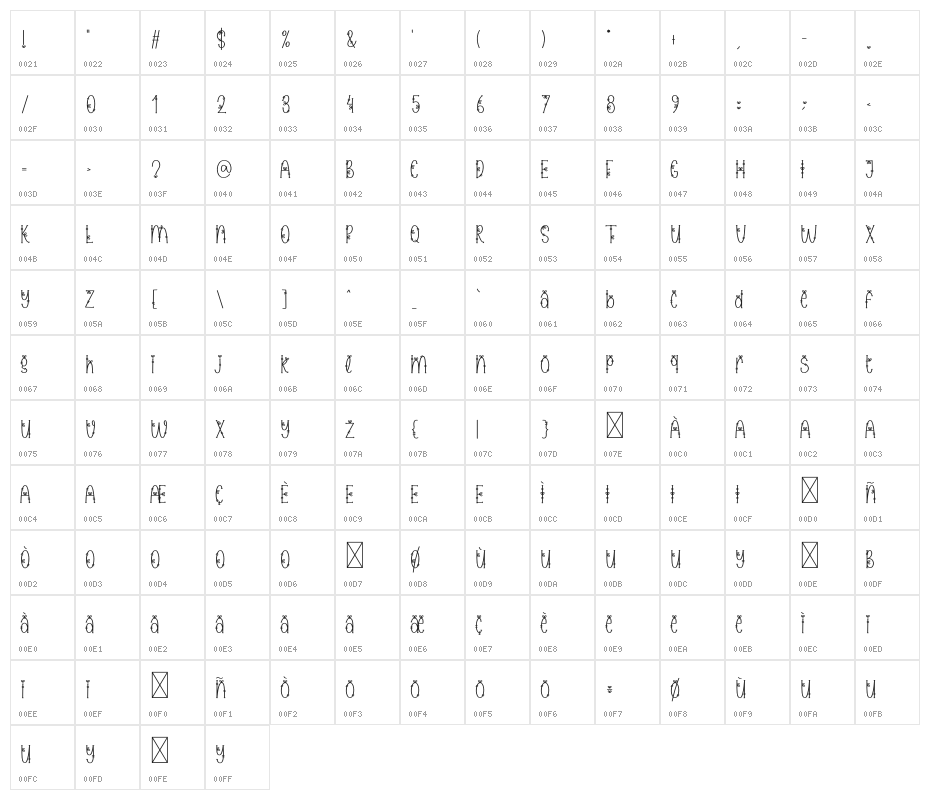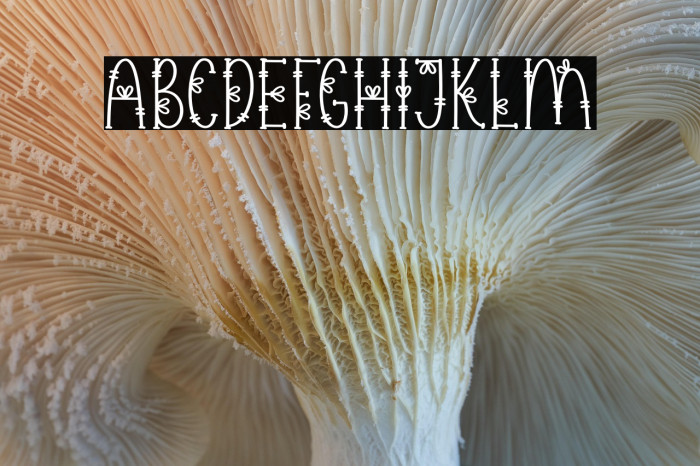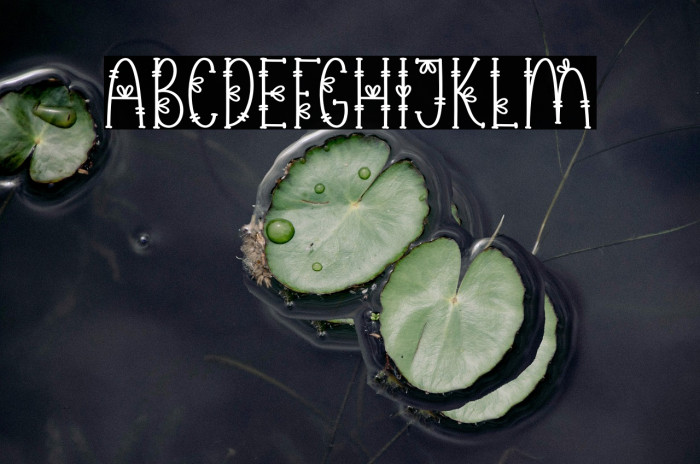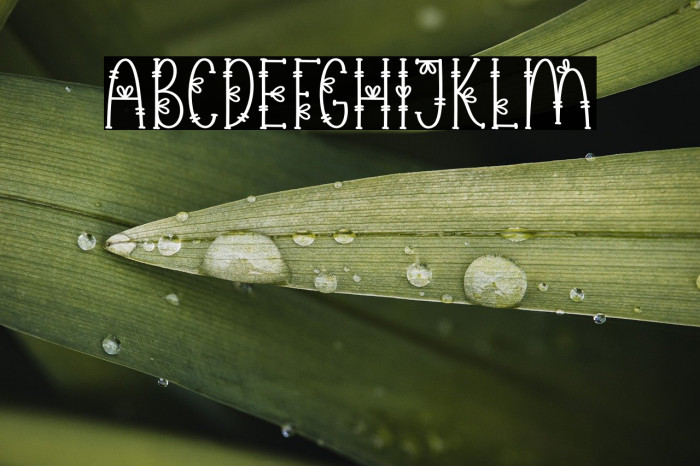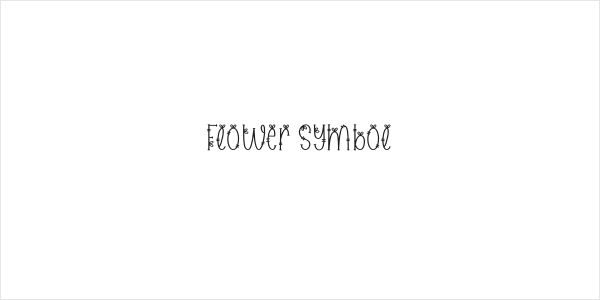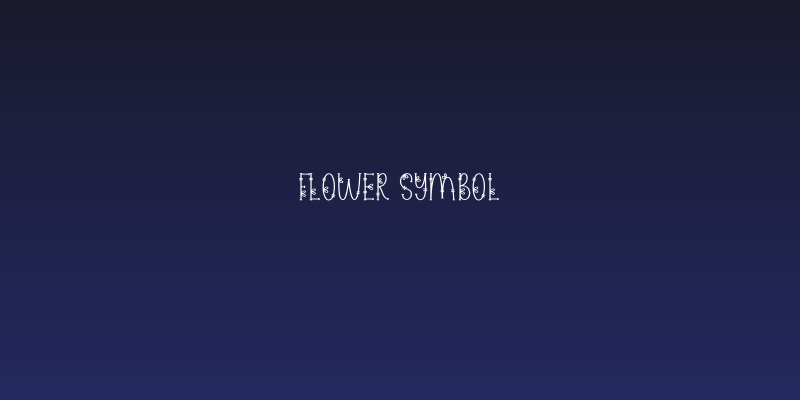
Flower Symbol Font
Flower Symbol Description
This decorative font features a whimsical design with floral elements integrated into each character. The letters are embellished with small flower motifs, giving it a playful and artistic appearance. The uppercase and lowercase letters maintain a consistent style, with each character adorned with unique floral accents. The numbers and special characters follow the same decorative theme, ensuring a cohesive look across all glyphs. This font is ideal for projects that require a touch of nature or a playful, creative flair. Its unique style makes it stand out, perfect for eye-catching designs.
| Use Case | Headlines, Logos, Artistic designs |
| Proposed Projects | Ideal for greeting cards, invitations, posters, and any design needing a whimsical, nature-inspired touch. |